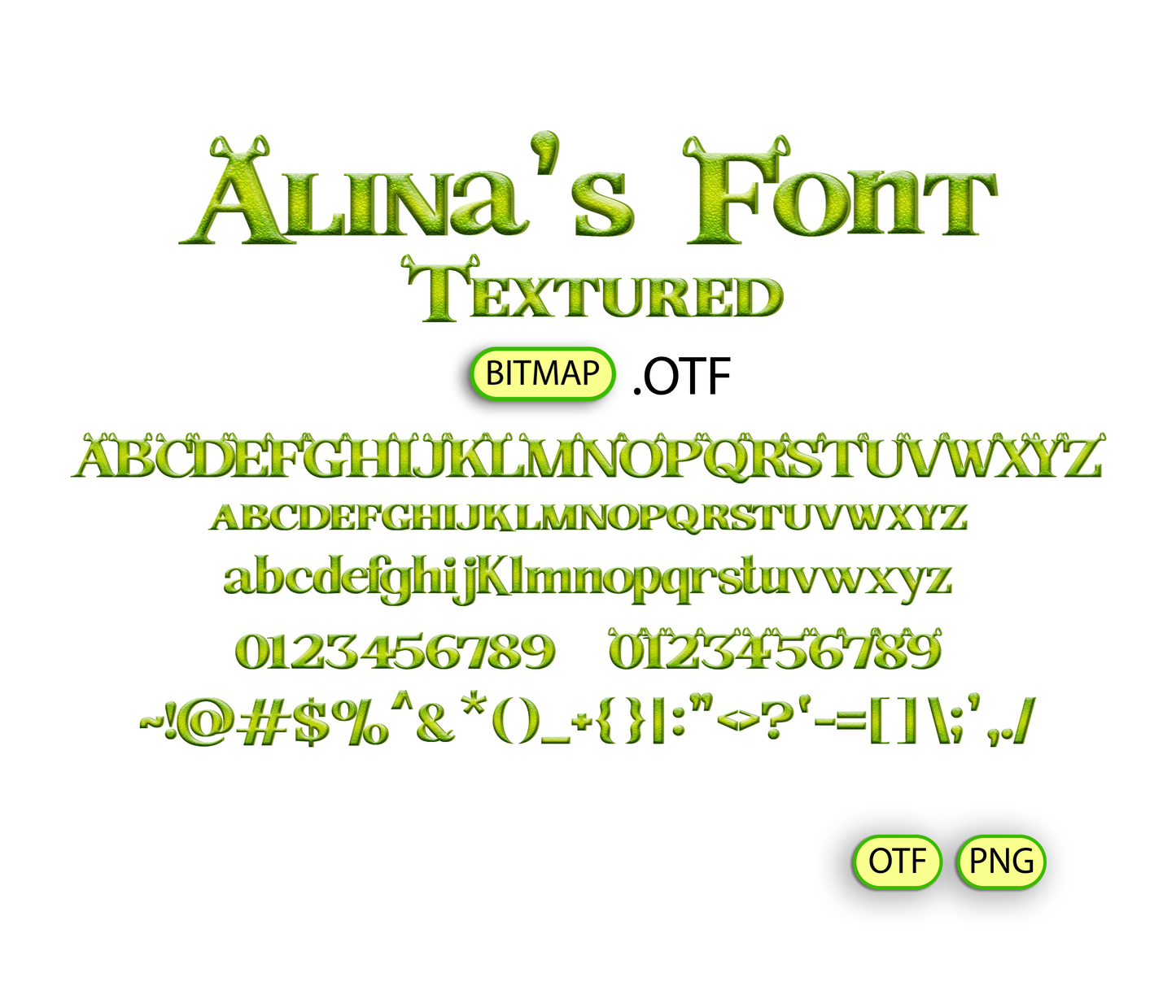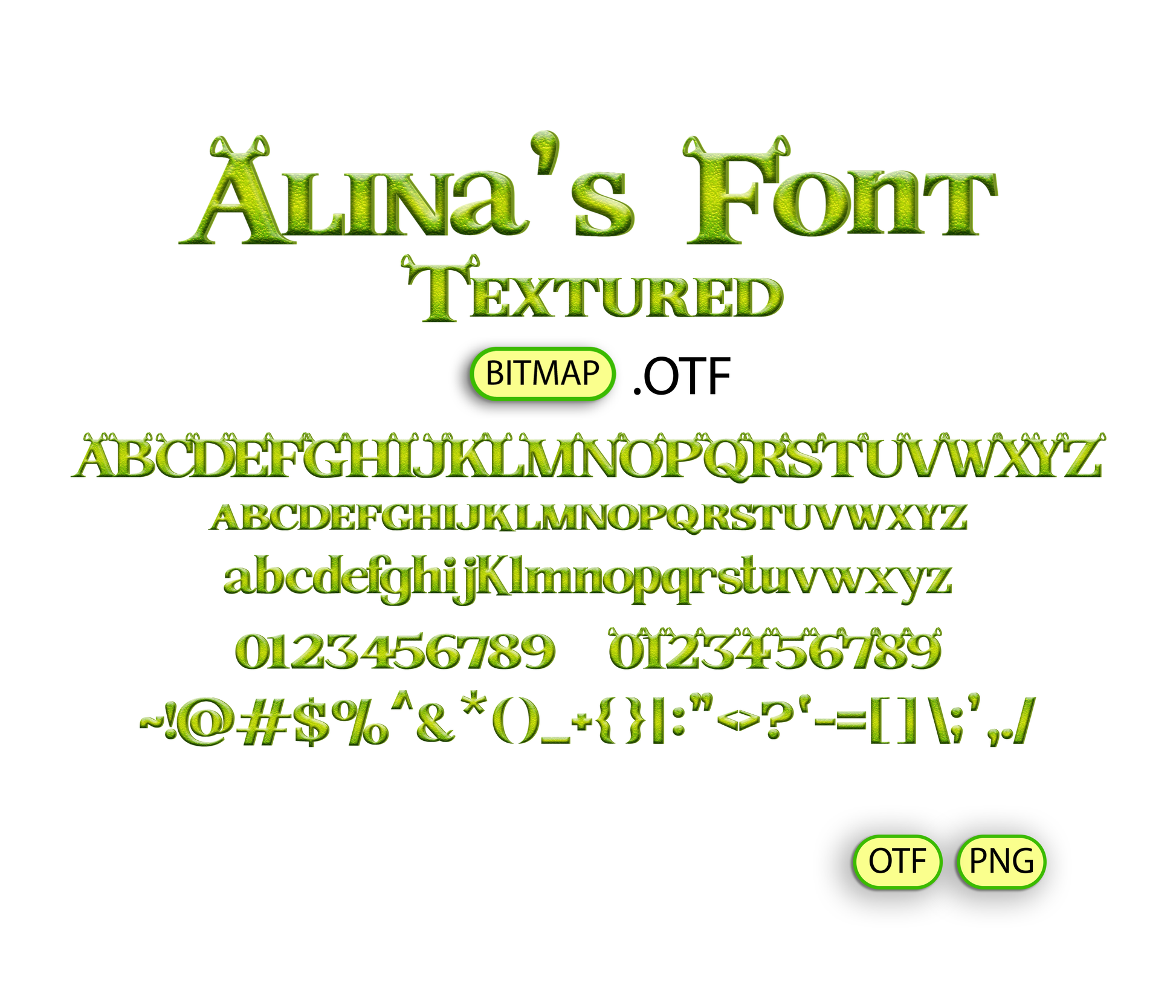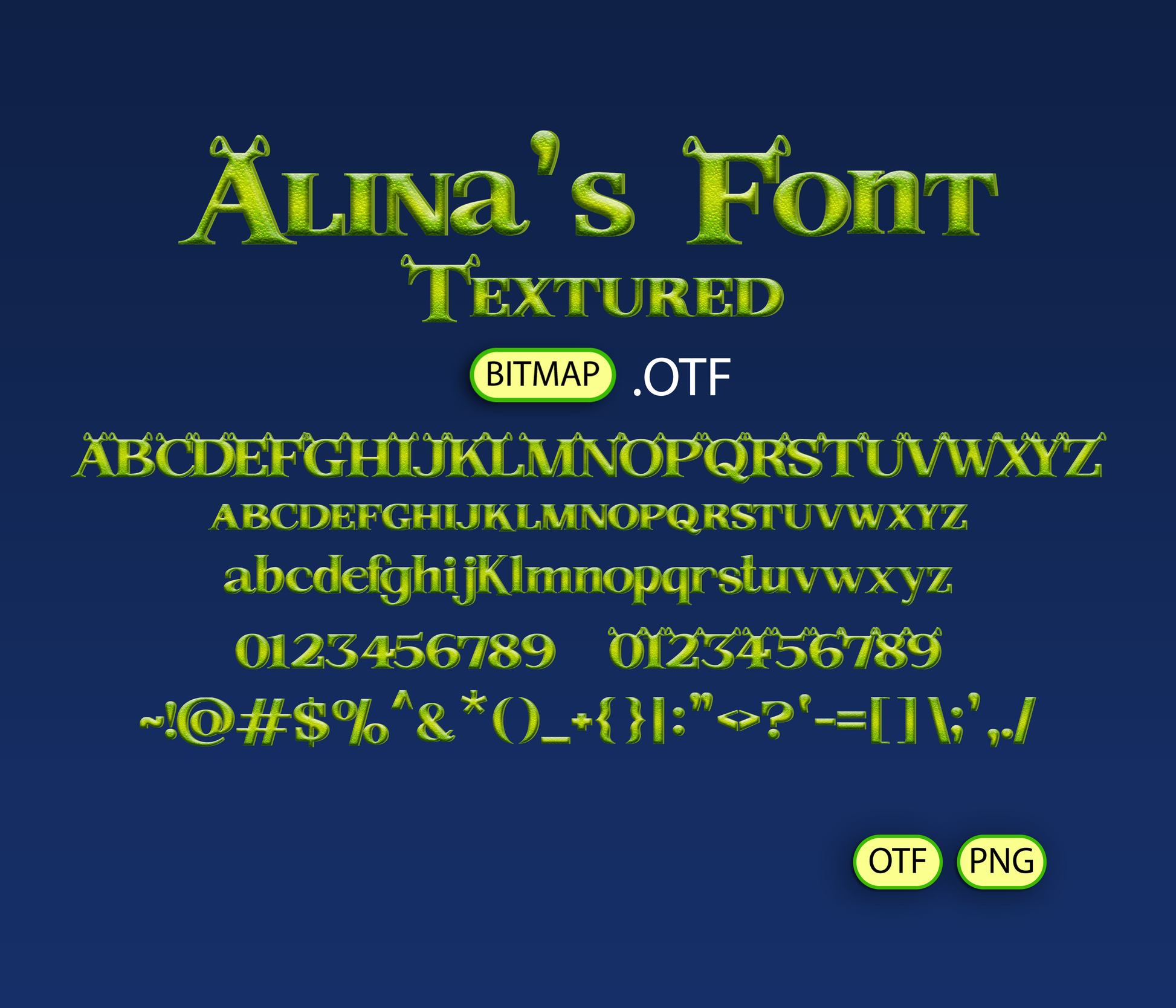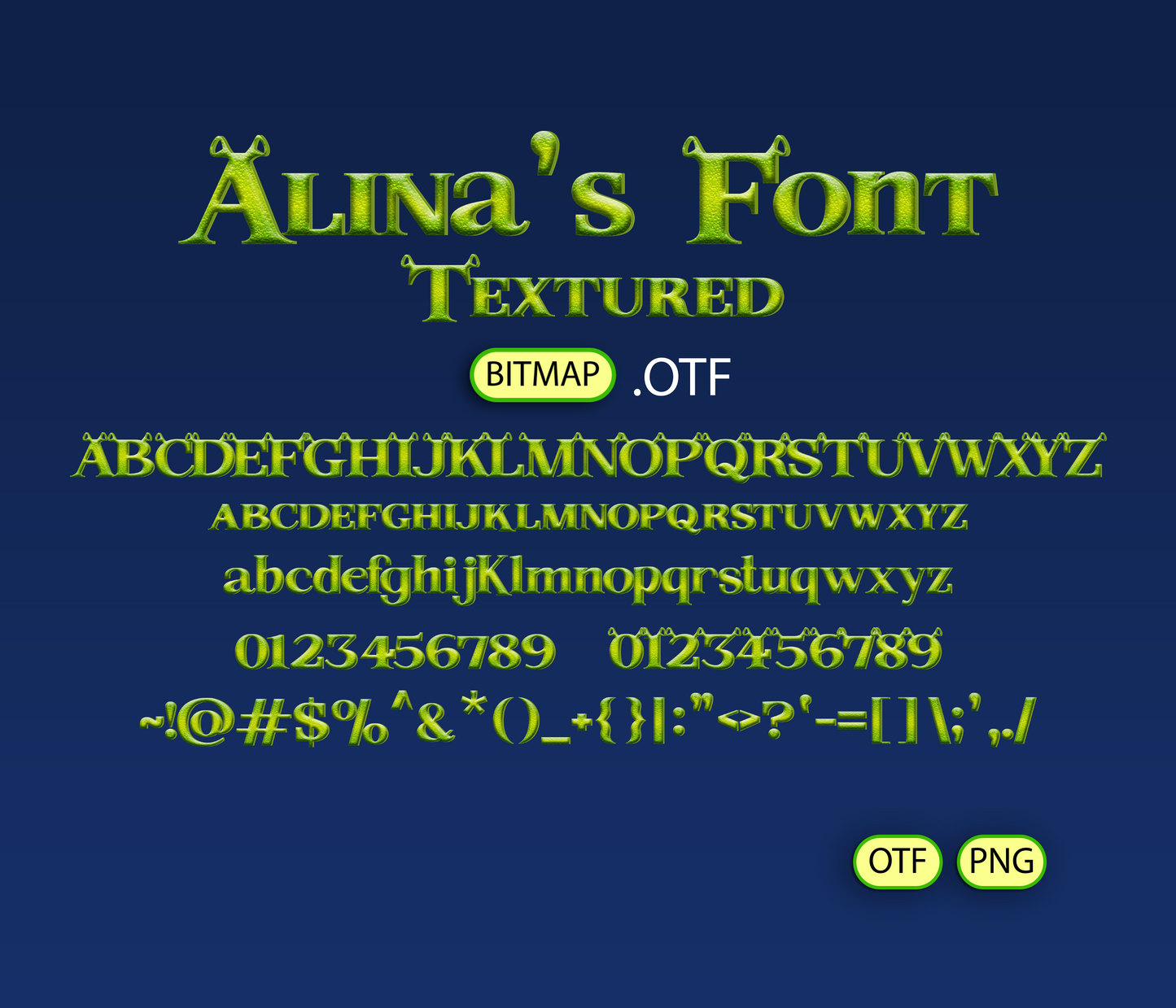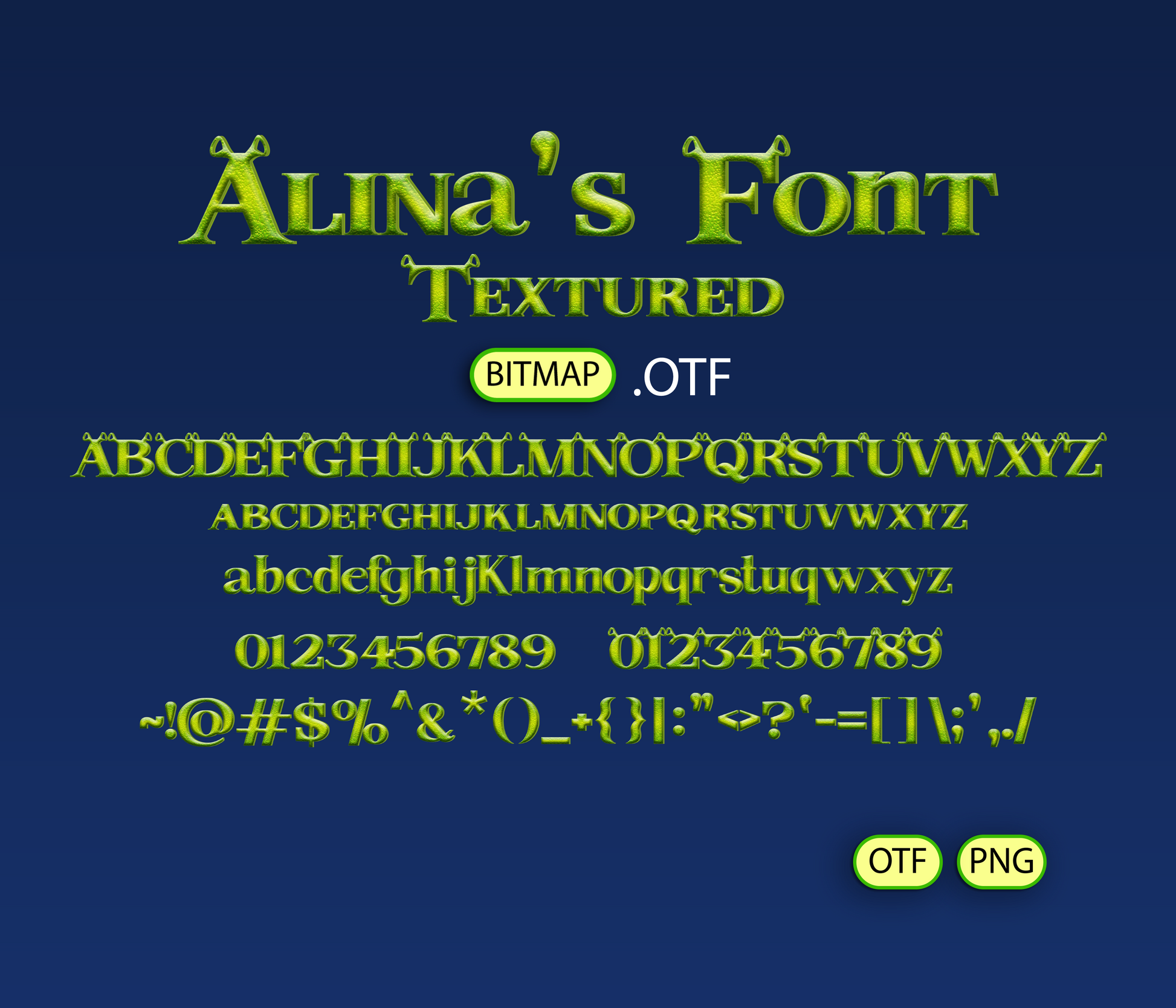
Swamp Hero Font Textured
Swamp Hero Typography Set
Step into the whimsical world of a certain green ogre with our Swamp Hero Typography Set. This font captures the essence of fairy tale adventures with a twist of humor and heart, perfect for fans, designers, and creatives looking to add a touch of animated magic to their projects.
Our Swamp Hero Typography features bold, playful characters with a hint of fairy tale charm, reflecting the blend of classic storytelling and modern humor. Ideal for:
The Swamp Hero Typography includes both textured and non-textured variants, ensuring compatibility with all design software, including Canva. This versatility allows for easy incorporation into designs for users of all skill levels.
Our font pays homage to the beloved world of a lovable ogre and his friends, empowering your designs with its charming and engaging spirit. Whether you're crafting fan art, designing themed events, or adding a touch of animated magic to personal projects, this font communicates the essence of fairy tale adventures with a modern, humorous twist.